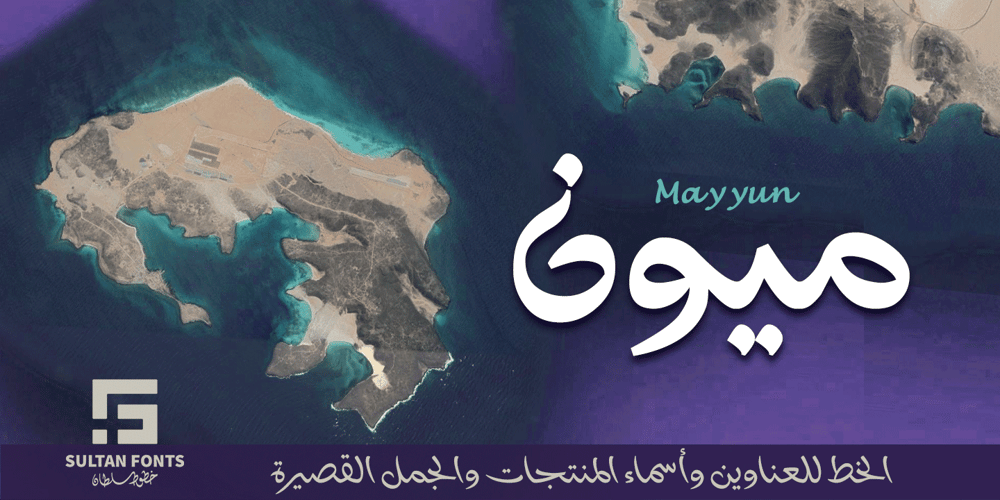
SF Mayyun Font Family was designed by Sultan Maktari and published by Sultan Fonts. SF Mayyun contains 2 styles and family package options. Mayyun is An Arabic text typeface for desktop applications. This line is intended for presentation projects, names of various publications and short paragraphsHere you will find a Mayyun in two types of regular and bold fonts.The font includes a matching Latin design and support for Arabic, Persian, Kurdish, and Urdu.Designer: Sultan MaqtariDesign date: 2021Publisher: Sultan Fonts